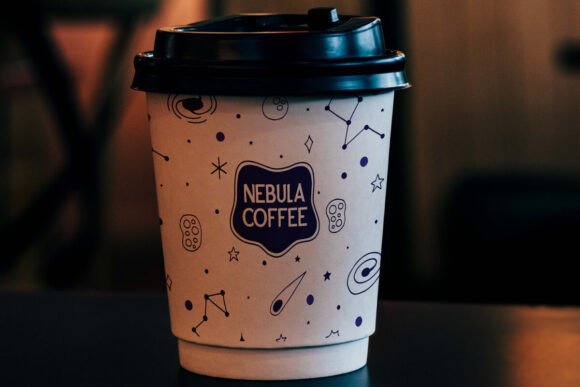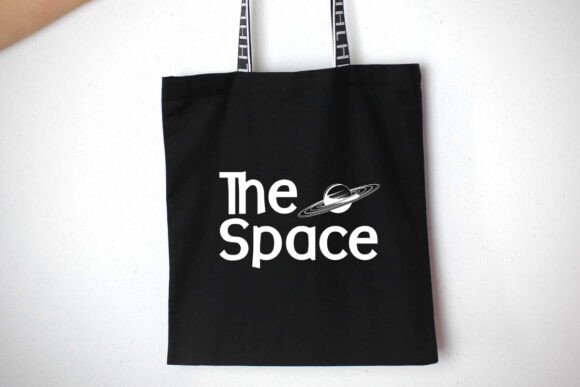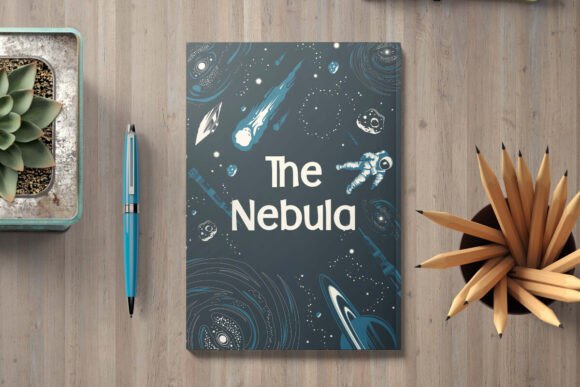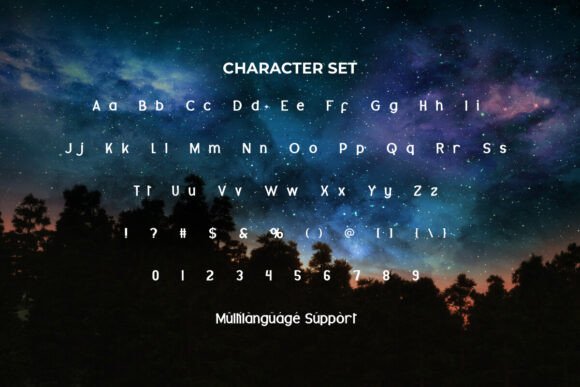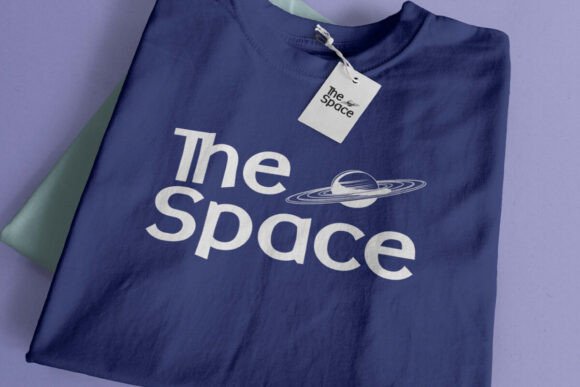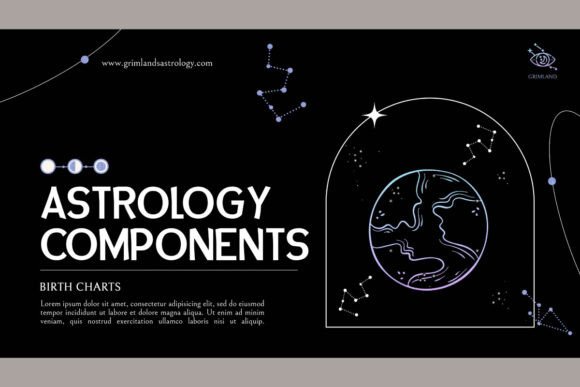
Introduction to Nebula View Font
Have you ever stared at the night sky, mesmerized by the swirling colors of a nebula? That’s the kind of creative spark that inspired the Nebula View Font – a unique sans serif display font that’s out of this world.
As designers, we’re always on the lookout for high-quality design resources that can elevate our creative projects. Nebula View Font is just that – a free download that’s perfect for adding a touch of personality to your designs. With its transparent background and versatile style, this font is a valuable addition to any designer’s toolkit.
Whether you’re working on a brand image, cover design, or marketing material, Nebula View Font is sure to impress. Its unique characteristics make it easy to pair with other fonts, giving you endless possibilities for creative expression.
Nebula View Font
- Unique, Cosmic Design: Nebula View Font features a stunning, otherworldly design perfect for creative projects that require a touch of celestial wonder.
- Transparent Background Option: This font allows for a transparent background, giving designers the flexibility to use it over various backgrounds and images.
- Perfect for Creative Projects: Nebula View Font is ideal for use in various creative projects, including logos, branding, packaging, and advertising materials.
Honest Review: Nebula View Font
I recently had the chance to experiment with the Nebula View Font, and I’m excited to share my thoughts with fellow designers. As a design resource, this font has the potential to elevate your creative project to new heights.
Here are a few things that work well with the Nebula View Font:
- ✨ High-quality design: The font is clean, modern, and visually appealing, making it perfect for a variety of design projects.
- ✨ Transparent background: This feature allows you to easily integrate the font with any background, giving you more creative control.
- ⚠️ Limited font styles: While the font is beautiful, it’s a bit limited in terms of styles and variations, which may not be ideal for designers who want more flexibility.
Overall, I’m impressed with the Nebula View Font, and I think it’s a great addition to any designer’s toolkit. With a little creativity, this font can help you create stunning designs that grab attention.
Tips for Getting the Most Out of Nebula View Font
Experiment with different font sizes and colors to create a unique design. Use the font with a high-quality transparent background to give your design a professional look. Consider combining the font with other design resources to create a cohesive and creative project.
The Nebula View Font is ideal for creative projects such as logo design, branding, and infographics. It’s also great for presentations and documents that require a unique and eye-catching font. With its high-quality design and transparent background, the Nebula View Font is a valuable resource for any designer or artist.